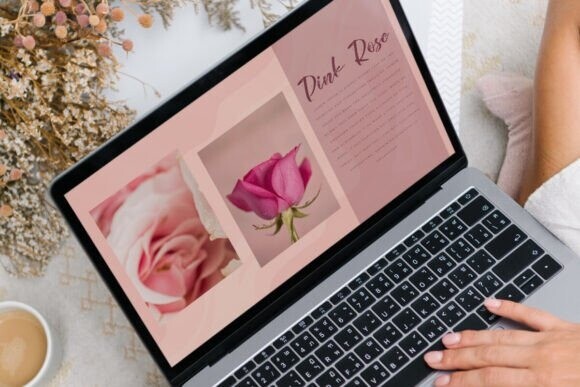
Girly Side Font
Girly Side Font is a playful, brush script font with a fun and stylish feel. It has a flowing, handwritten look that adds a touch of elegance and charm to designs. Perfect for invitations, logos, and social media, it brings a sweet, feminine vibe to any project.